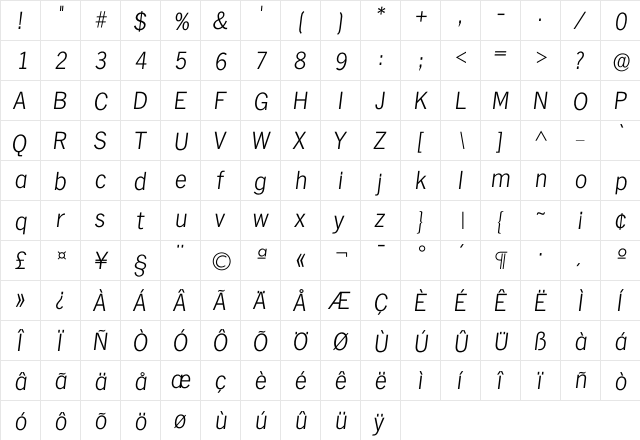
Ihamburg Xlight
Design Context for Ihamburg Typeface
Ihamburg is a composed and adaptable typeface that performs quietly and consistently across a wide range of design contexts. The delicate stroke weight brings airiness and refinement to layouts.